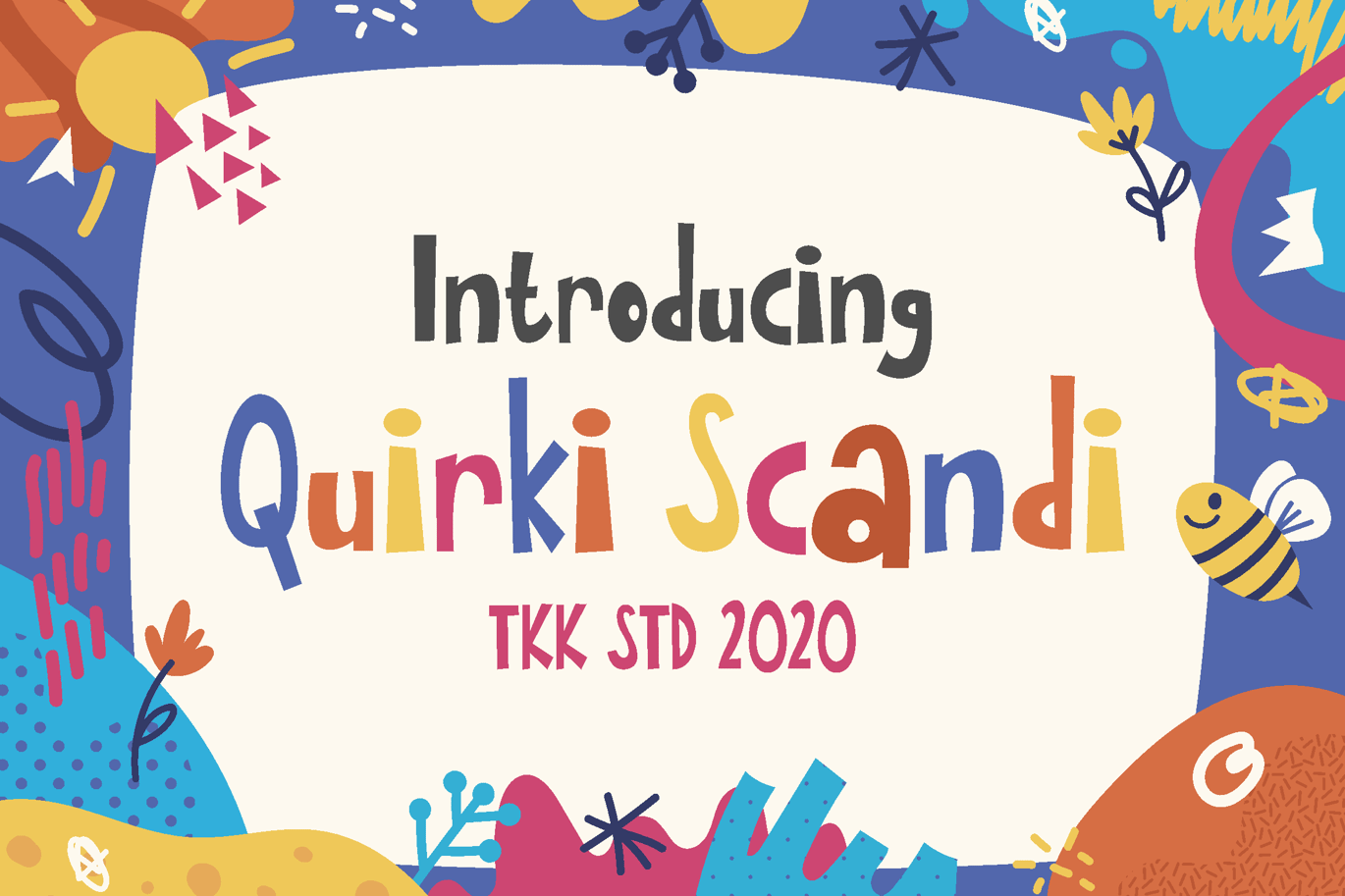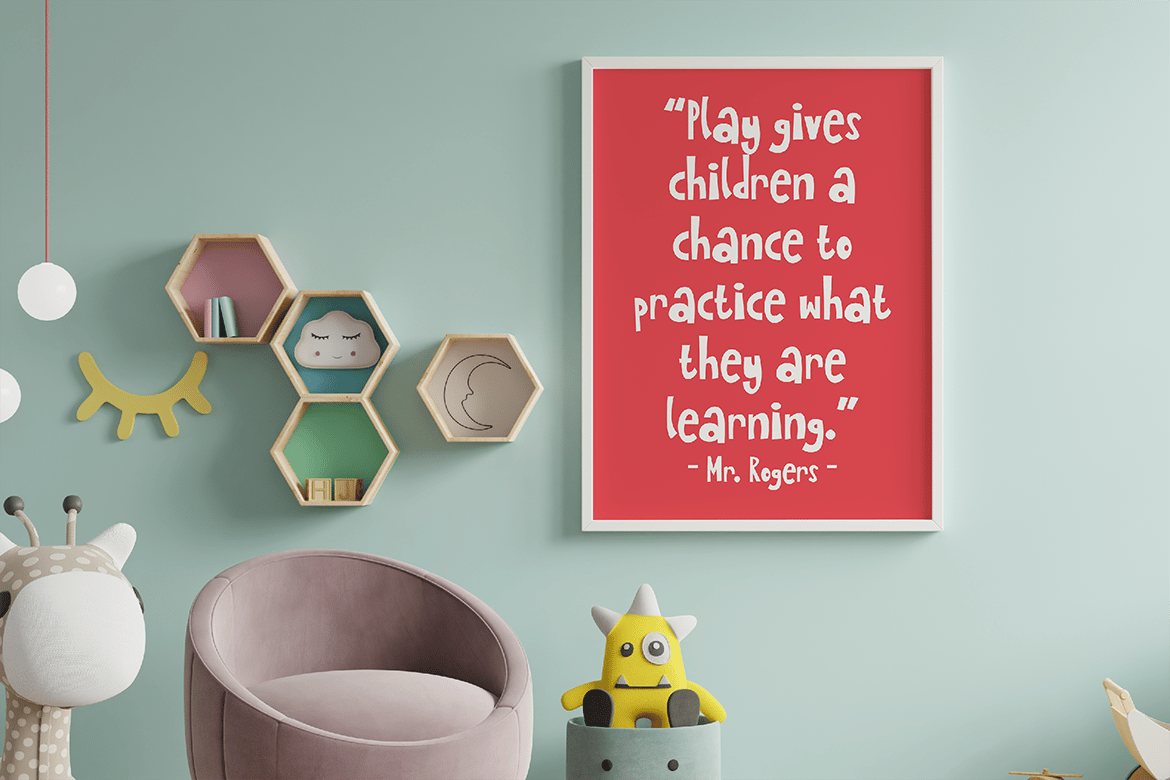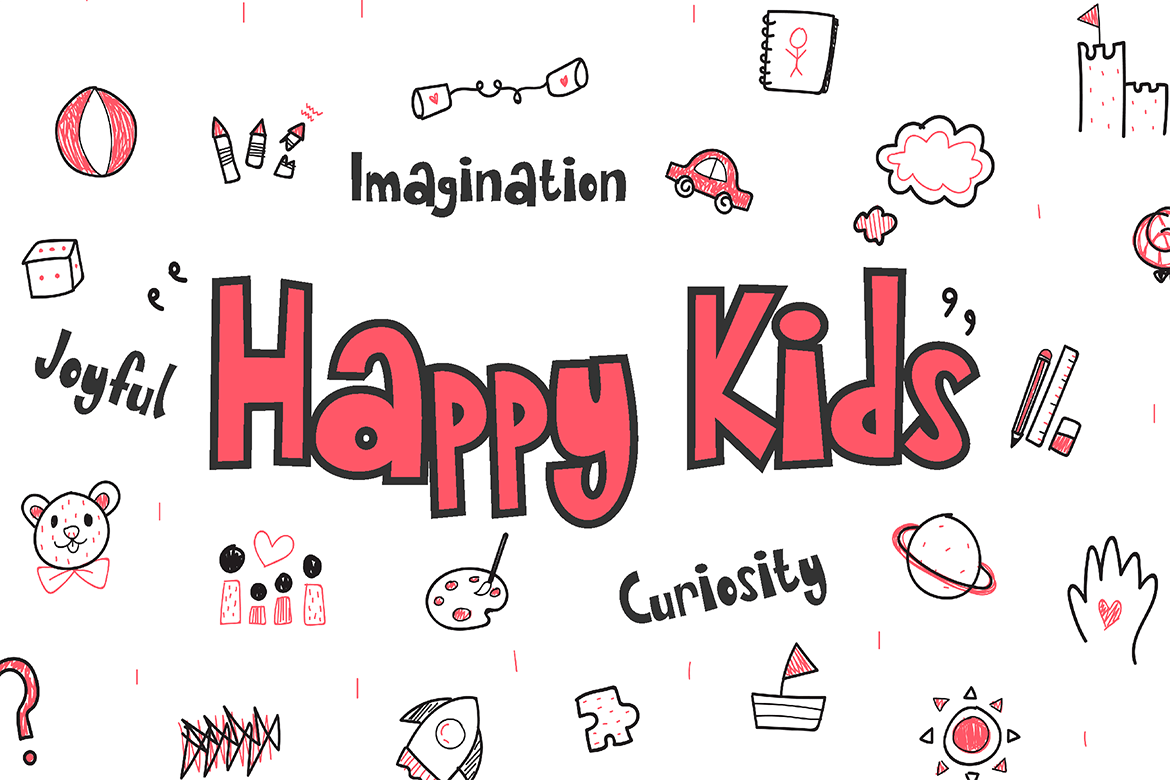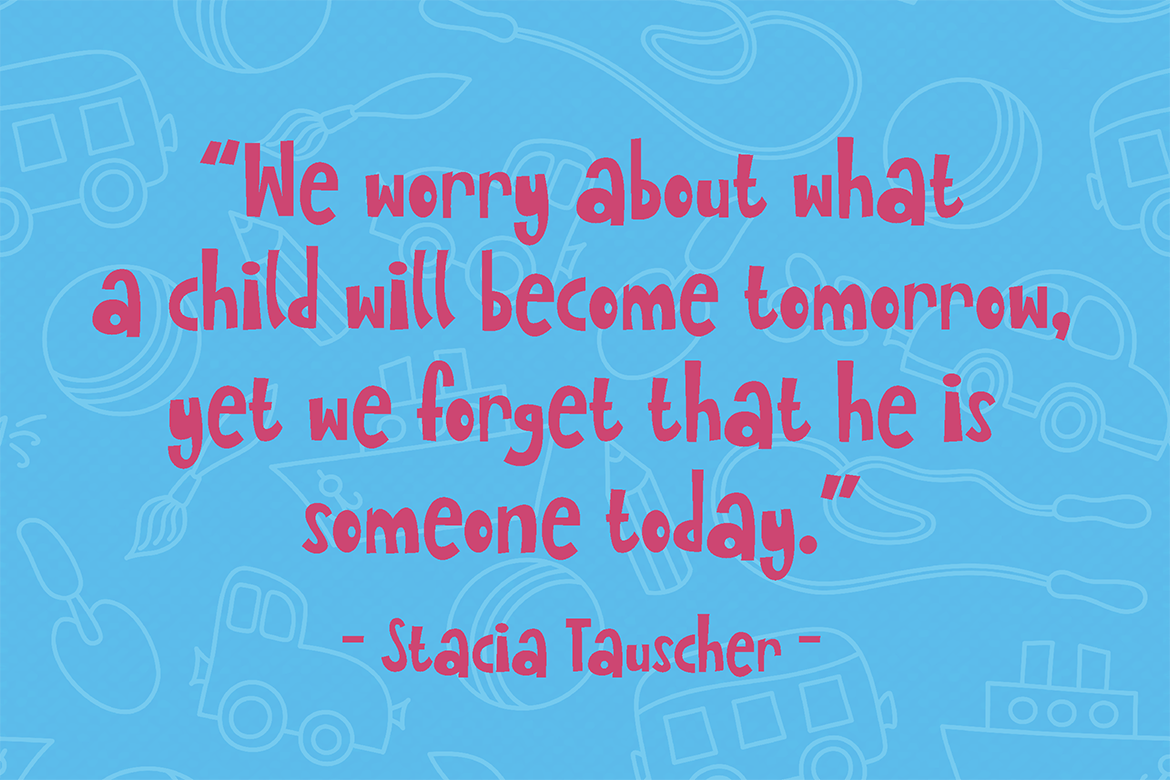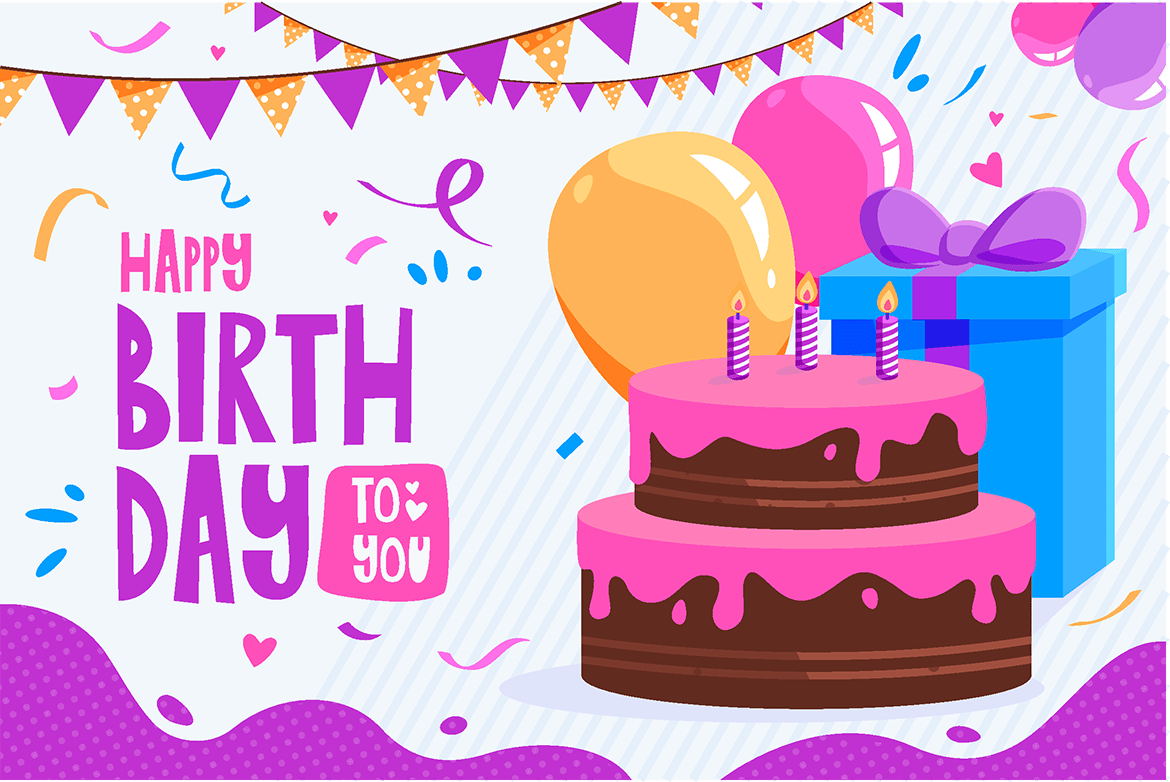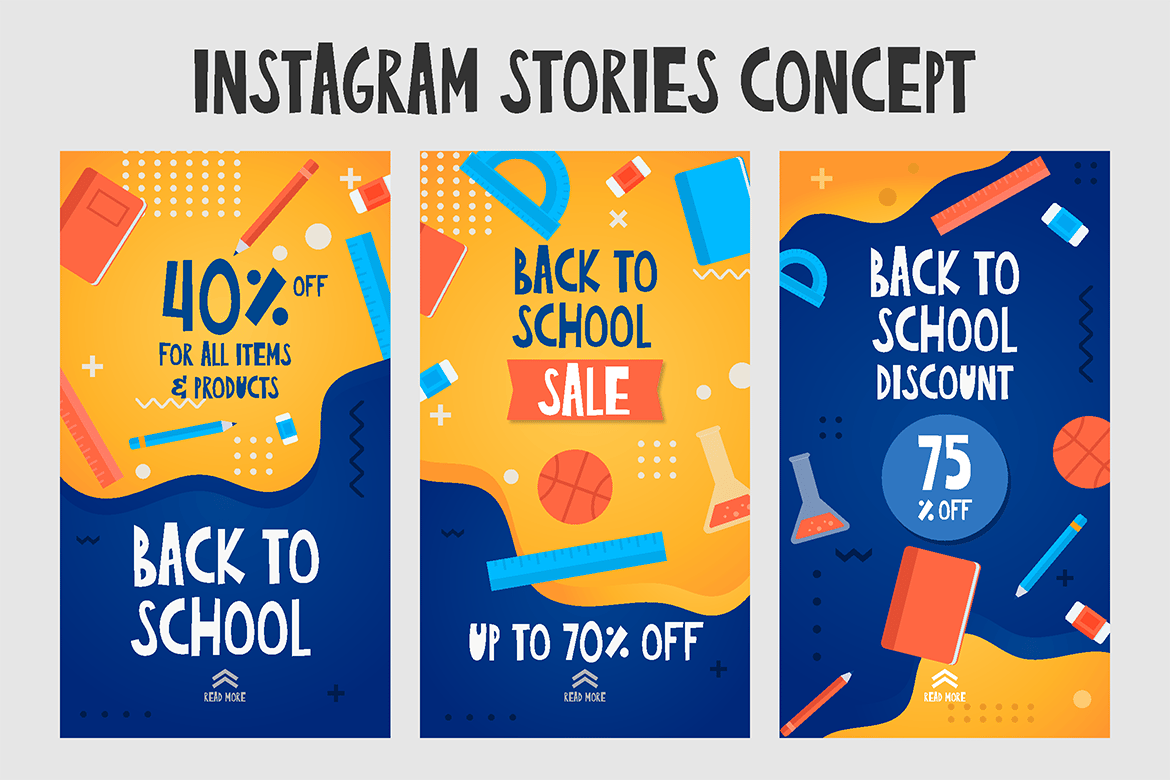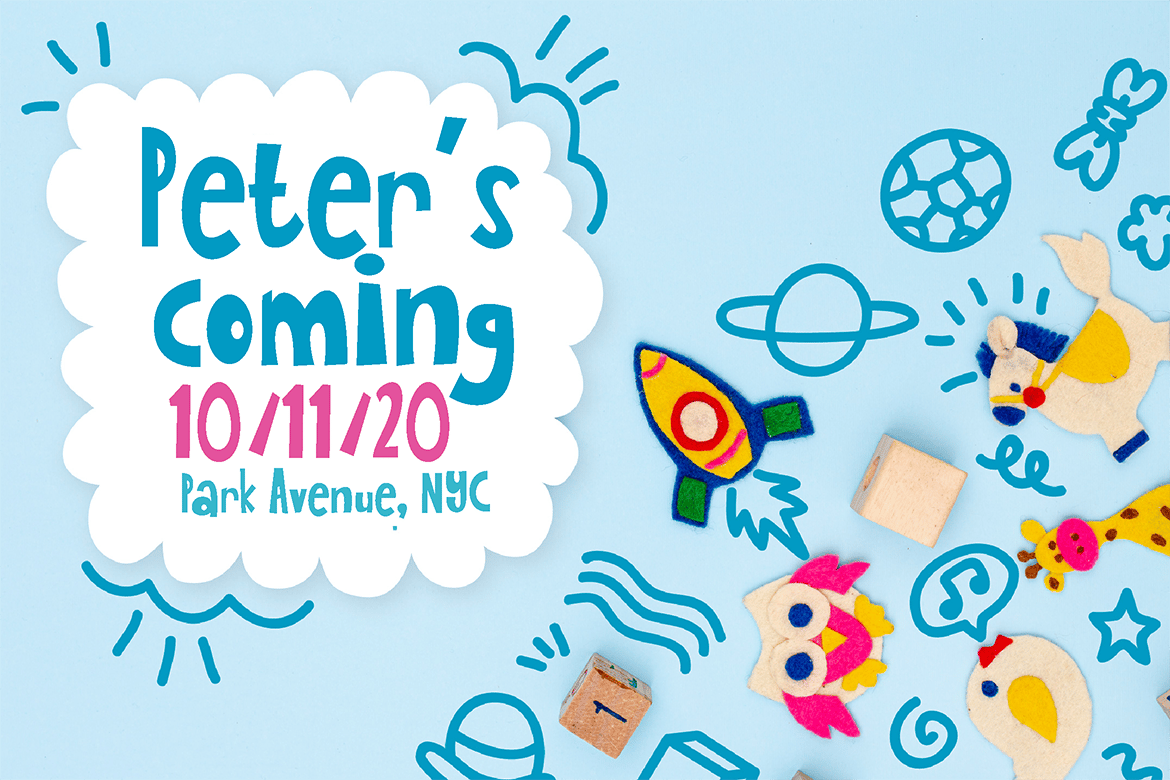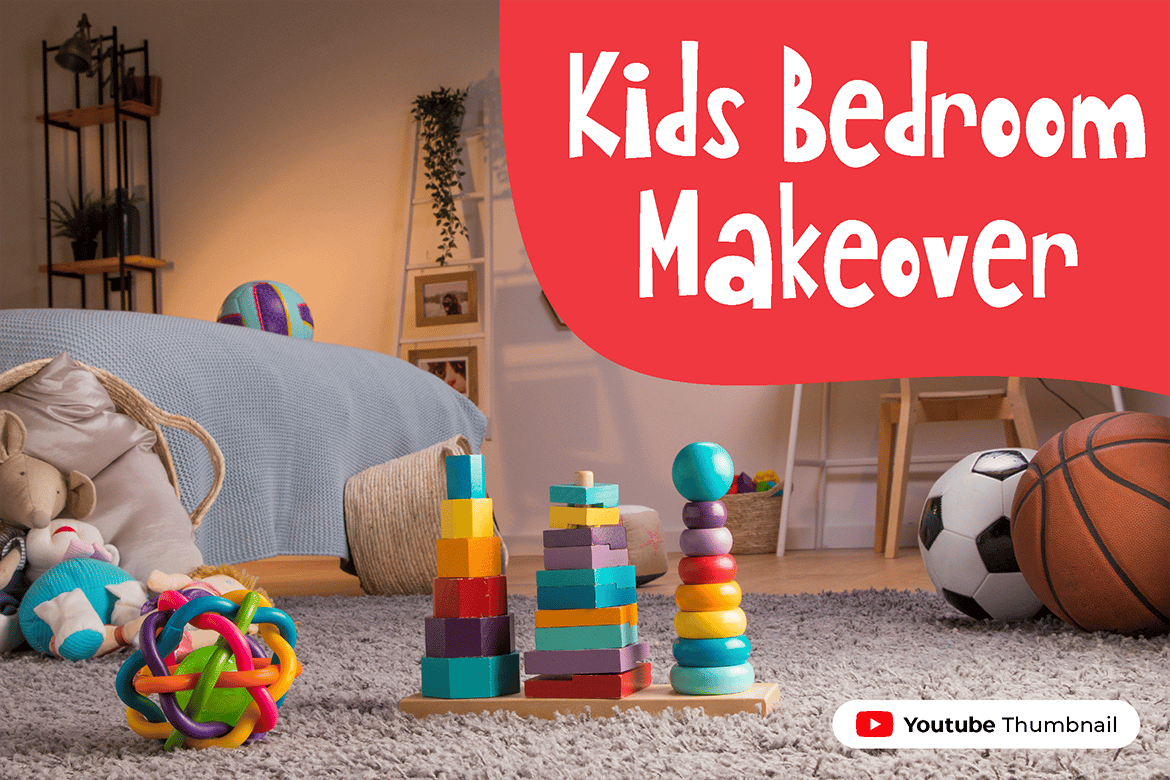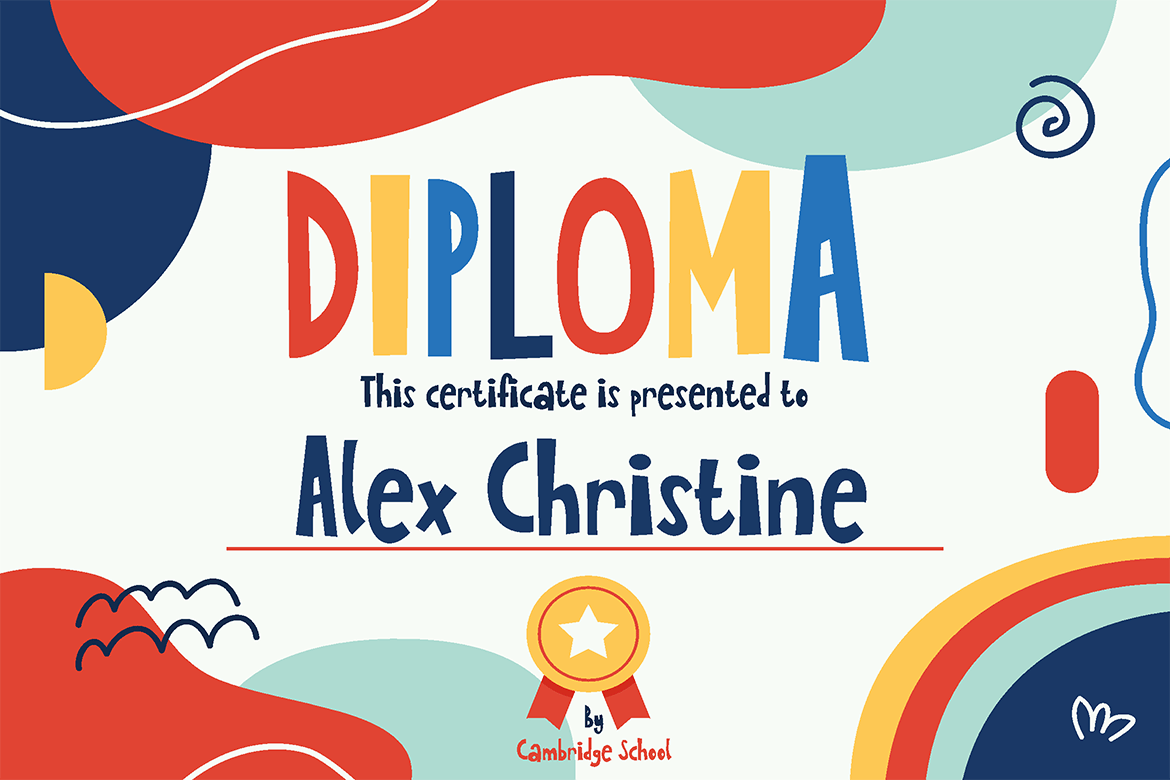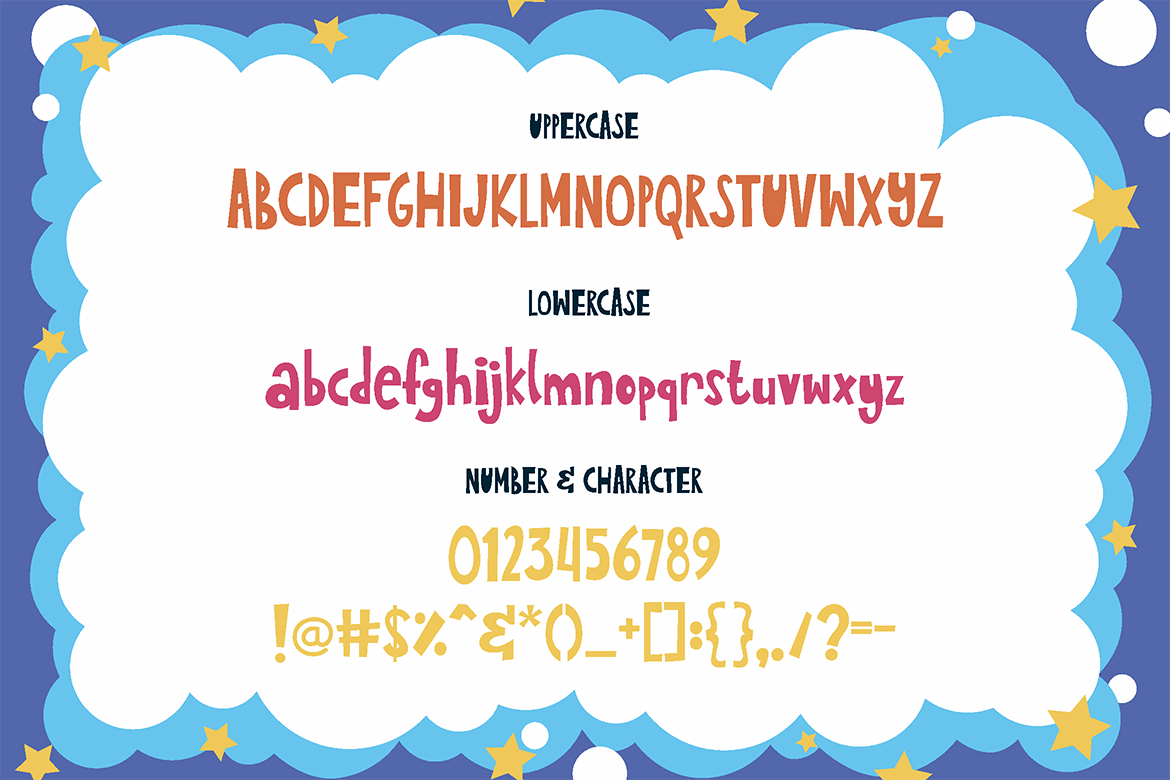
Girly Kids font – Quirki Scandi
Quirky Scandi – A Playful Handcrafted Font for Whimsical Designs!
Unleash the charm of Scandinavian-inspired playfulness with Quirky Scandi! This fun, hand-drawn font blends a joyful aesthetic with a contemporary twist, making every design feel warm, friendly, and engaging. Whether you’re crafting children’s projects, playful branding, or social media graphics, Quirky Scandi brings an extra touch of personality to your creations.
Why You’ll Love Quirky Scandi:
- Playful & Handcrafted: Organic strokes with an imperfect, lively feel.
- Bold Yet Approachable: Chunky yet smooth, making text pop effortlessly.
- Perfect for Kids & Events: Ideal for birthdays, invitations, posters, and storytelling.
- Versatile & Vibrant: Works beautifully on packaging, apparel, YouTube thumbnails, and branding.
- Multilingual Support: Covers multiple languages for global reach.
Make Your Designs Stand Out! Whether you’re a designer, marketer, or business owner, Quirky Scandi ensures your message is delivered with charm and clarity.